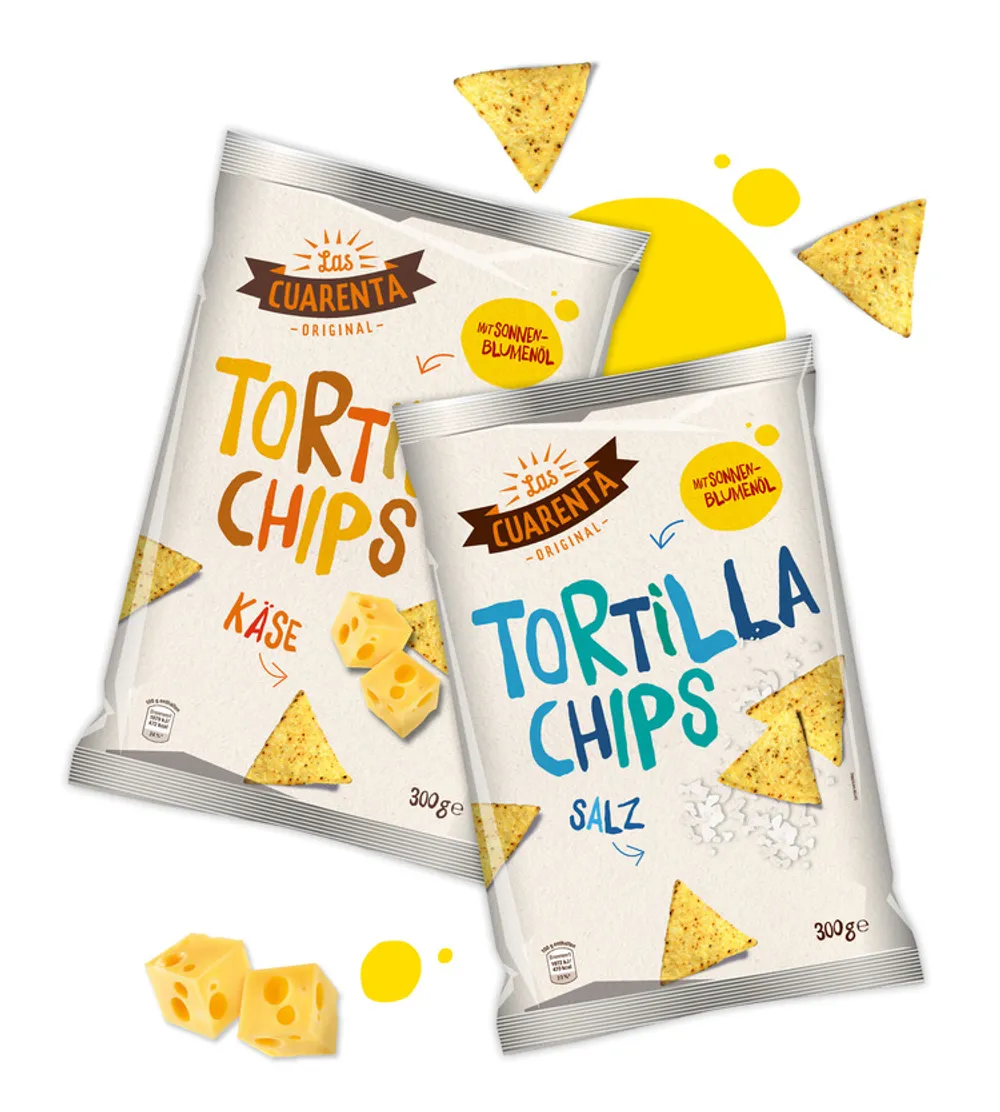
Fonts in Use: Daft Brush
Las Cuarenta
Daft Brush font in use on the beautiful and lively packaging for Las Cuarenta, a NETTO brand. Design by the German agency Jung (Erica especially liked it!), which focuses on corporate communication, brand development, and packaging.